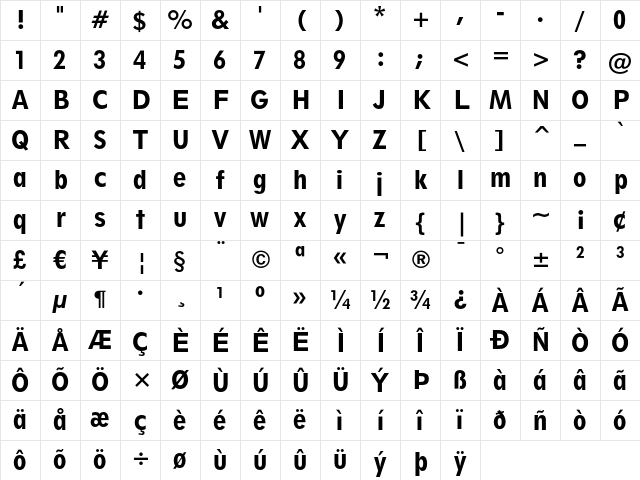
Geometric 212 Heavy Condensed
Style: Heavy Condensed
Geometric 212 Heavy Condensed
Complete Geometric 212 Heavy Condensed glyph index. Displaying only characters natively supported by Geometric 212 Heavy Condensed font.
Design Context for Geometric 212
Geometric 212 is a composed and adaptable typeface that performs quietly and consistently across a wide range of design contexts. Its narrow stance lets it pack a punch even in space-constrained designs.